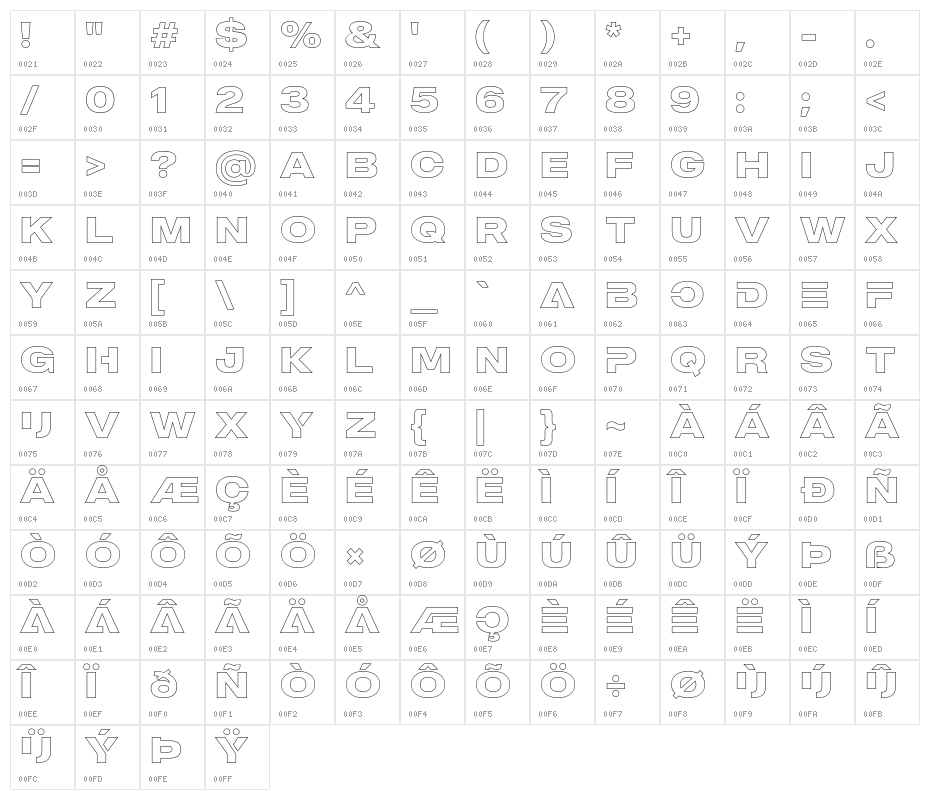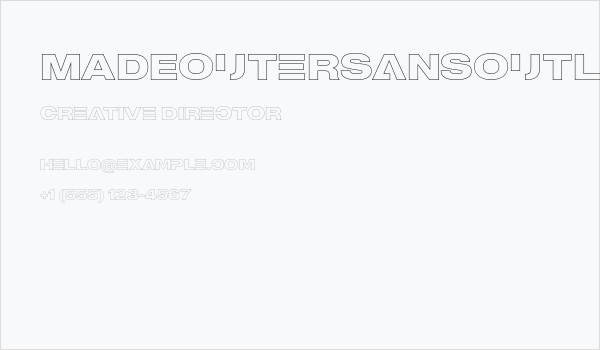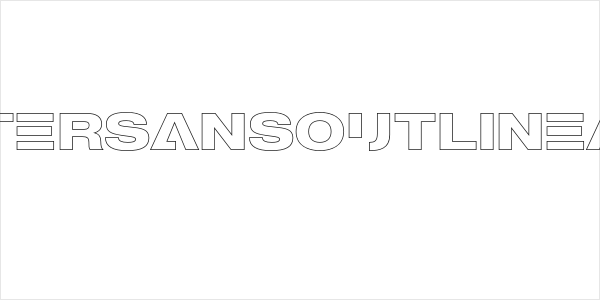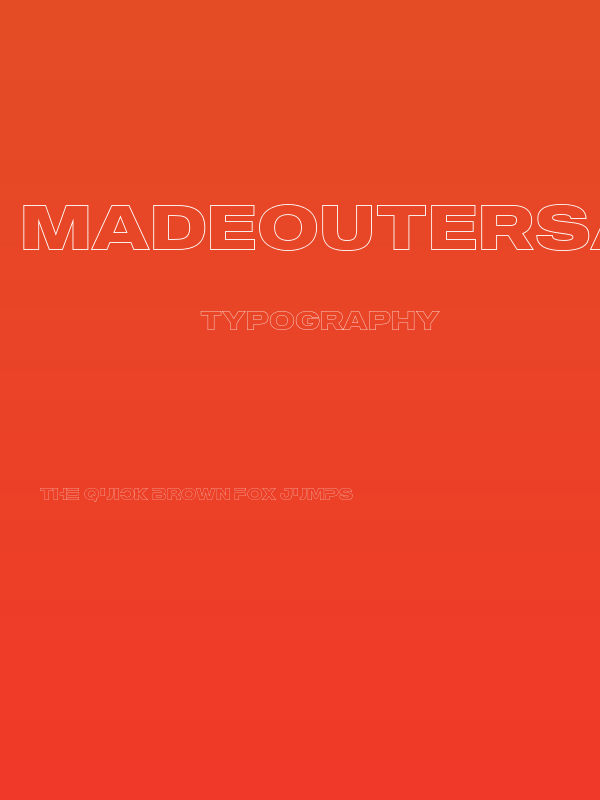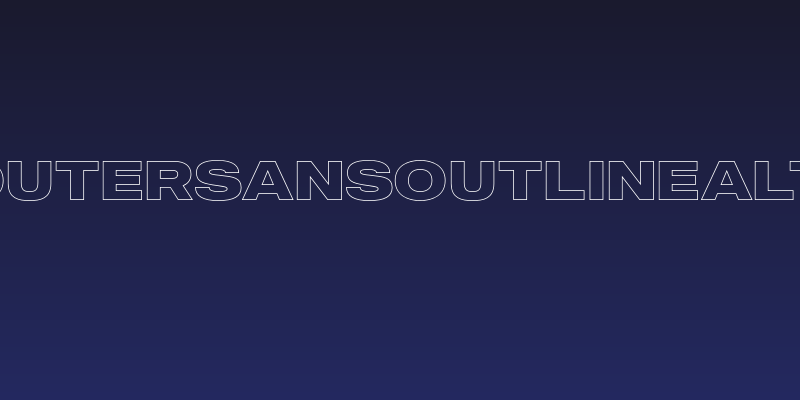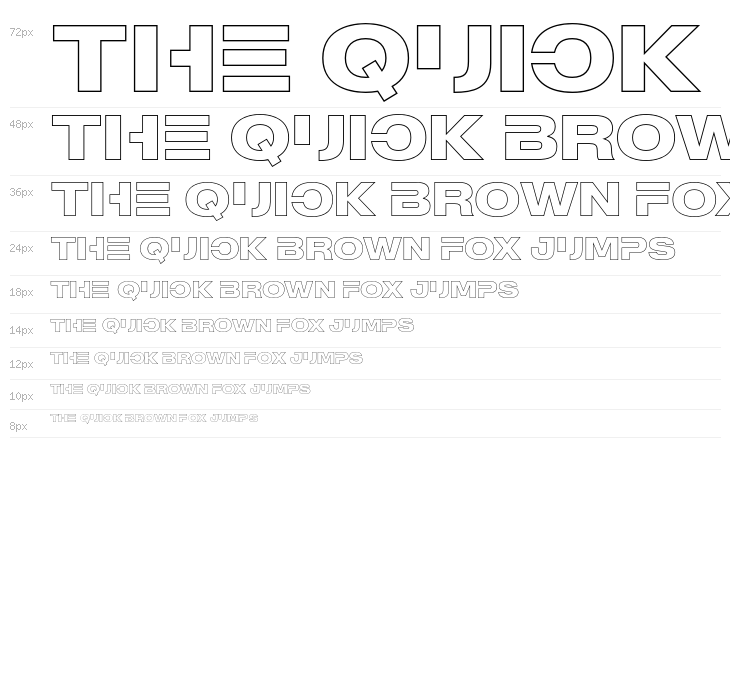
MADEOuterSansOutlineAlt-Bold Font
MADEOuterSansOutlineAlt-Bold Description
This font features a bold, outlined style with a modern and geometric aesthetic. The characters are uppercase and lowercase letters, numerals, and a variety of special characters. The design is clean and structured, with consistent line thickness throughout each character, giving it a uniform appearance. The outline adds a unique dimension, making it stand out in various design contexts. The spacing between characters is balanced, ensuring readability while maintaining its distinct style. This font is versatile, suitable for both digital and print media, and can be used effectively in branding, advertising, and editorial design.